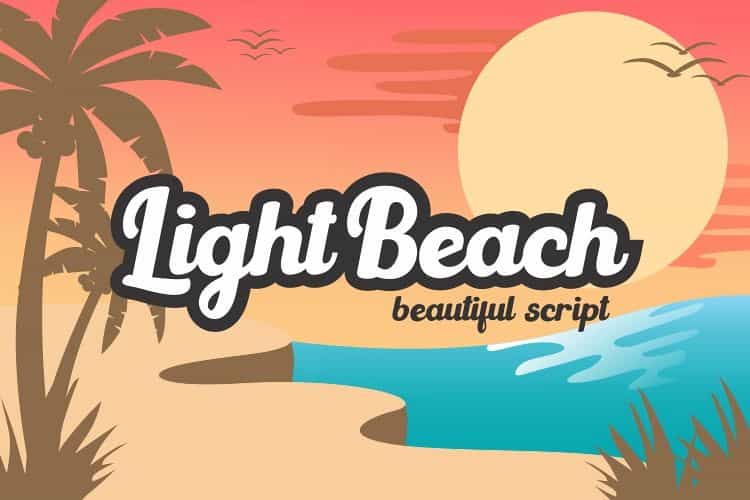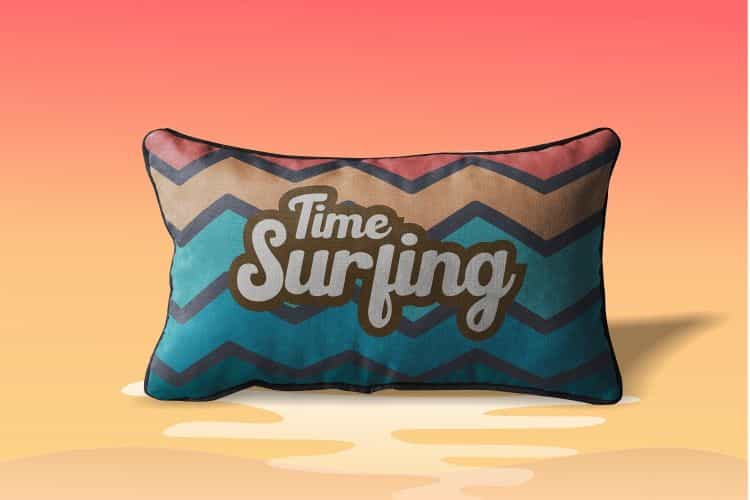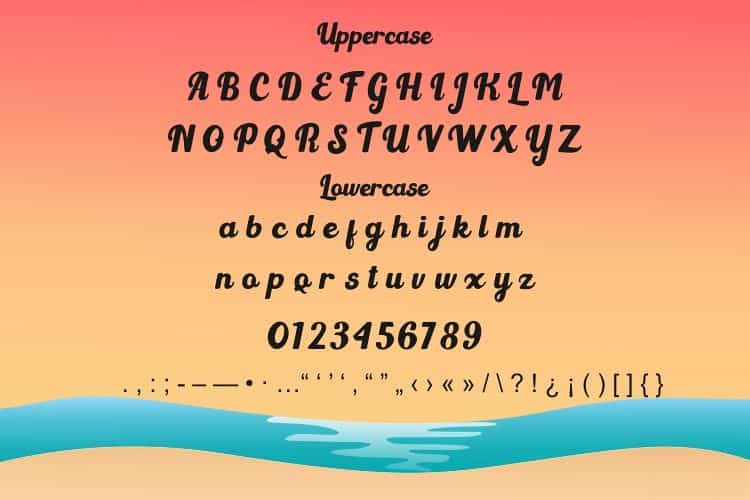
Discover Light Beach Bold Script Font, part of the Brush Calligraphy Script collection—a versatile and unique font perfect for adding a personal touch to your projects. Download it for free and enjoy crafting designs with style, from invitations to social media posts. This font is available exclusively for personal use, giving you the freedom to create without limits. Unlock your creativity with Light Beach Bold Script Font today!
Light Beach is a beautiful font in the script style. It is really stunning and amazing in many aspects for your latest design. Light Beach is suitable for many projects such as branding and logos, invitations stationery, wedding invitations, social media posts, ads packaging labels, product designs and watermarks, photography for special events, or any other.